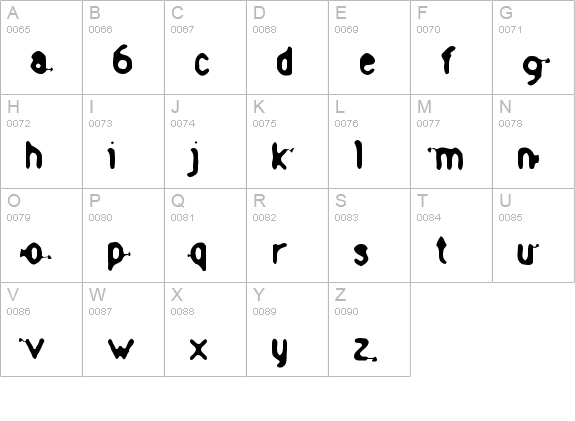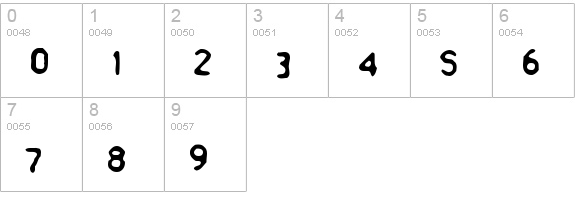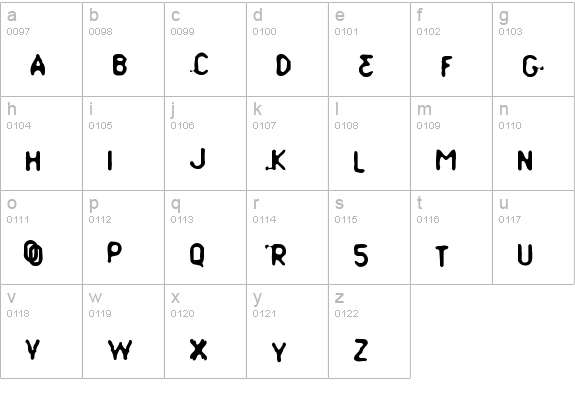
Whorn Font Details
Introducing Whorn, a stunning and versatile font that is sure to captivate and inspire. With its unique and intricate design, Whorn brings a touch of elegance and sophistication to any project. Whether you're designing a logo, creating eye-catching headlines, or crafting beautiful invitations, this font is the perfect choice to make a lasting impression. Whorn boasts a wide range of characters, including uppercase and lowercase letters, numerals, punctuation marks, and special glyphs. The carefully crafted details and smooth curves of each letter ensure legibility and readability, even at smaller sizes. This font truly stands out from the crowd, allowing you to create designs that are both visually striking and professional. But what sets Whorn apart from other fonts is its availability as a free download. Yes, you read that right – Whorn can be yours at absolutely no cost! Thanks to FontsMarket.com, you can easily access and download this incredible font without breaking the bank. FontsMarket.com is a trusted source for high-quality fonts, and with just a few clicks, Whorn can be yours to use in any personal or commercial project. So why wait? Take advantage of this amazing opportunity to enhance your designs with Whorn. Whether you're a design enthusiast, a professional graphic designer, or simply someone seeking to add a touch of elegance to your everyday creations, Whorn is the perfect choice. Download it for free today at FontsMarket.com and let your creativity soar.